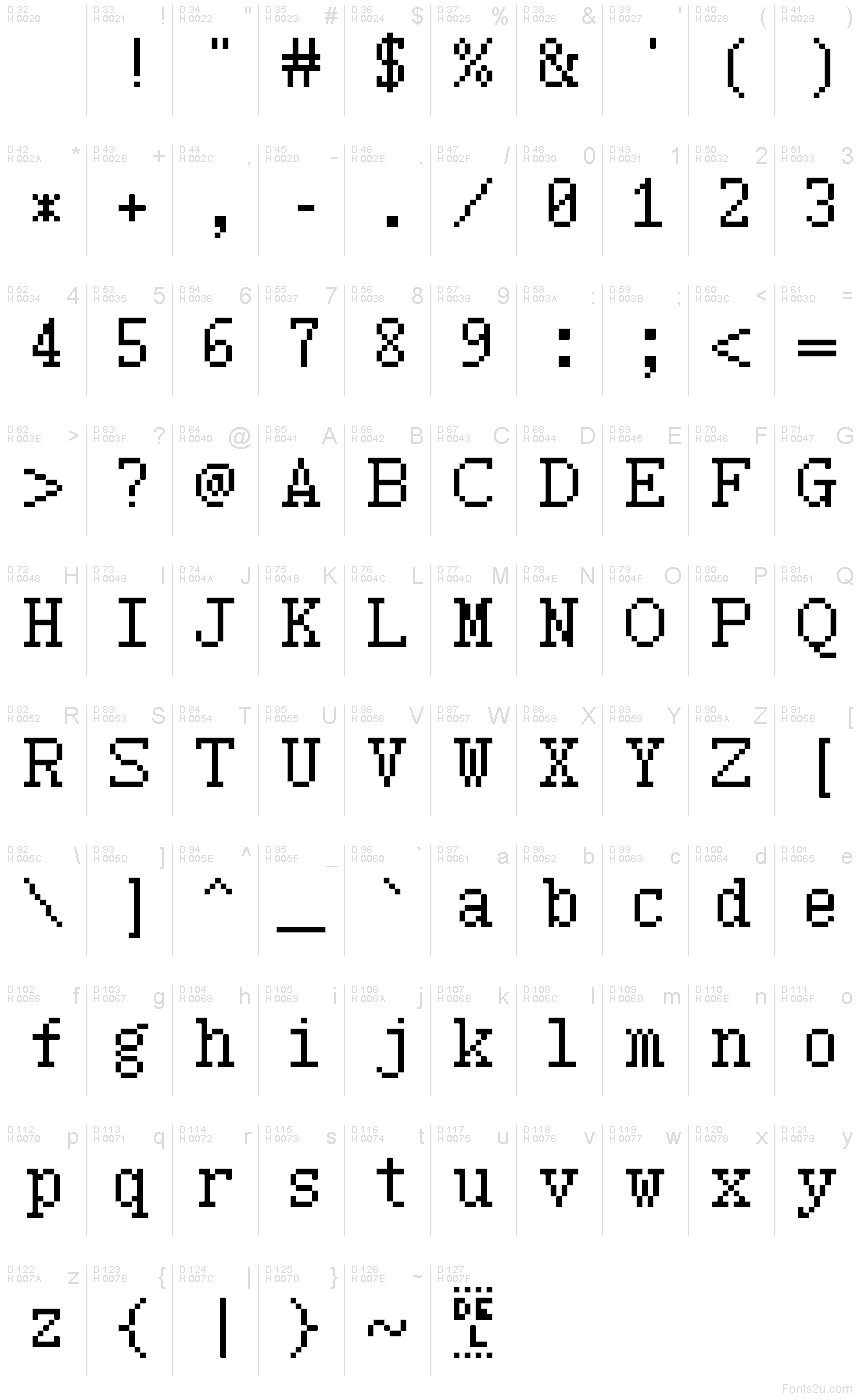
not_cake unicode 1.6 Regular
Not Cake Unicode 1.6 font by marcot_0425 is a bitmap, pixelated, grungy typeface that recreates the look and feel of old computer screens. The low-resolution design is implemented uniformly across all characters that are disconnected with each other at certain points and distances.
“Enchrome New Unicode 1.2, which is based on “Wikipedia Unicode, which is based on “Enchrome Std Book, which is based on “Enchrome ASCII
Designer description:
It is a revival of the well-known Unicode font called 'Unifont' or C. Monk's '7:12 Serif'. It is a monospace font.